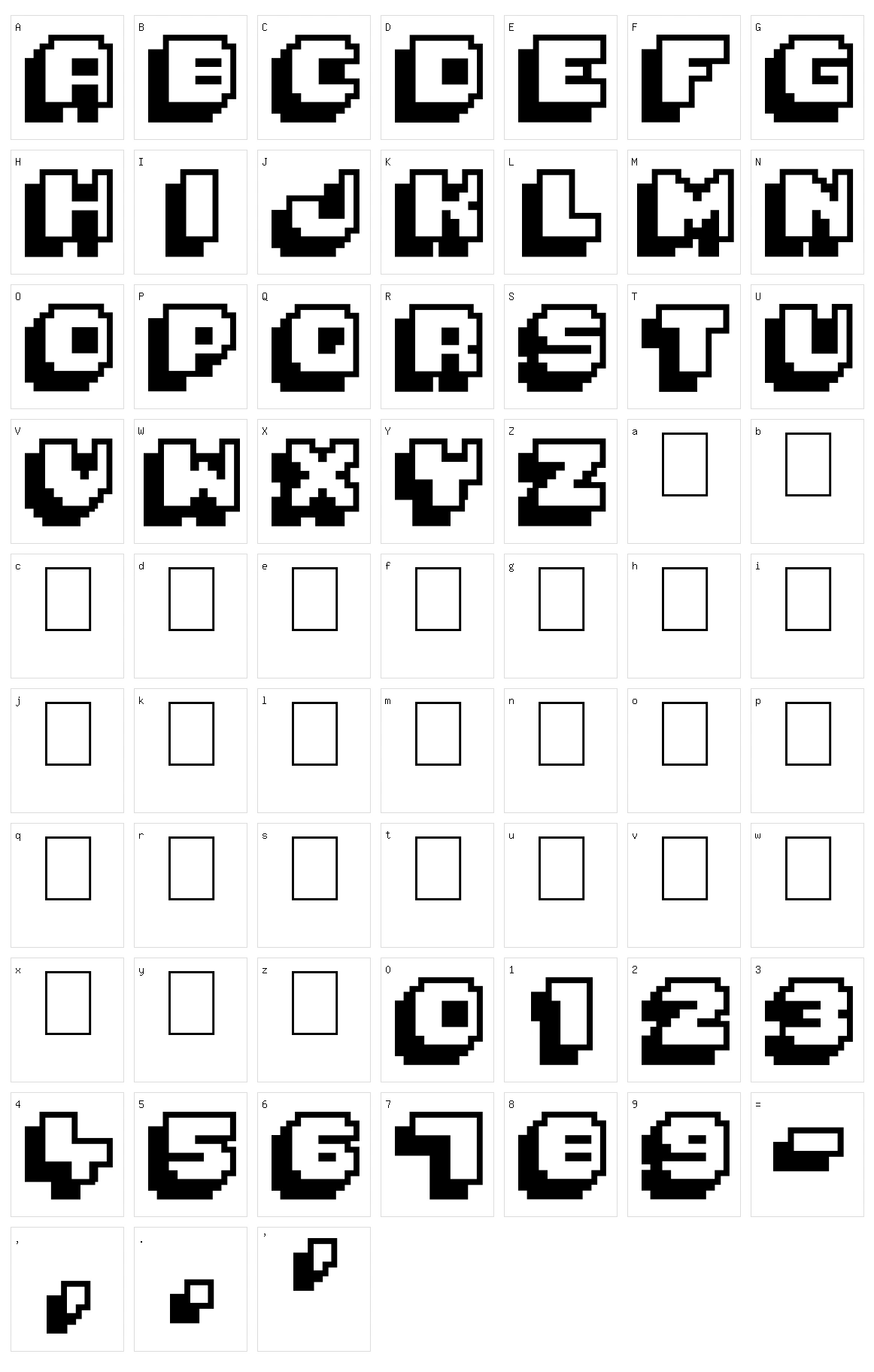
The free font Pixelmania is carefully designed by imagex, showcasing a thoughtful balance of creativity and usability and falls under the Square font style. When you download the ZIP file, it contains only 3.19 KB of font files, making it lightweight and quick to download. Please review the license details below to understand permitted usage and distribution rights. If license information is not available, we recommend using this font for personal projects only or contacting the author directly for commercial usage permissions.